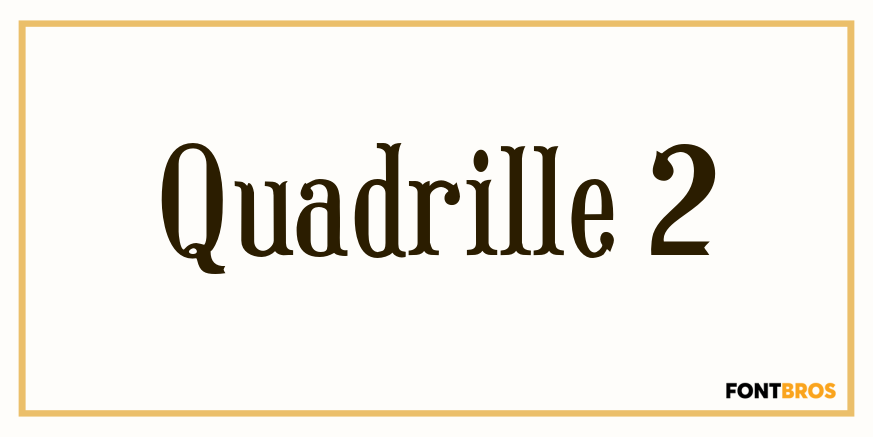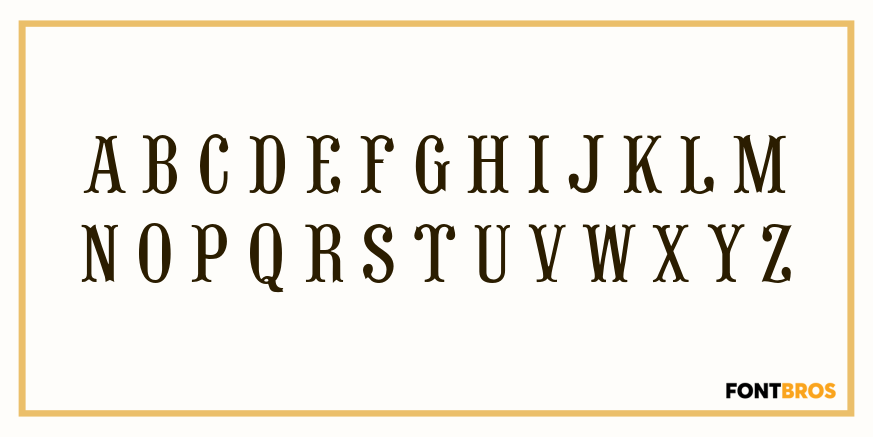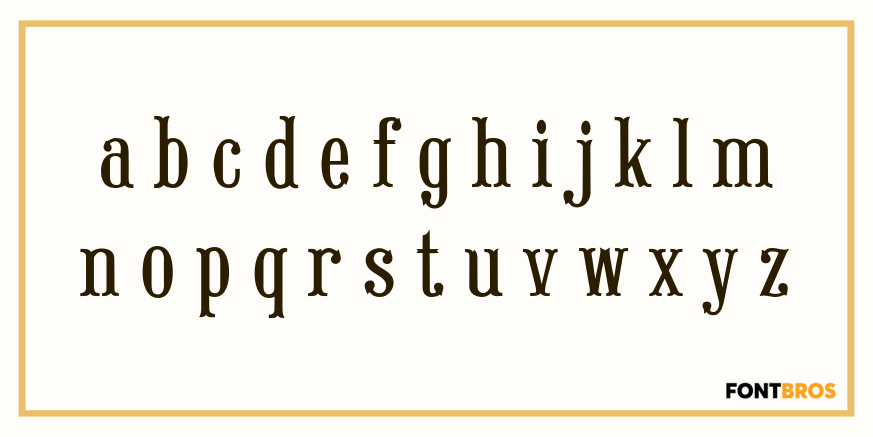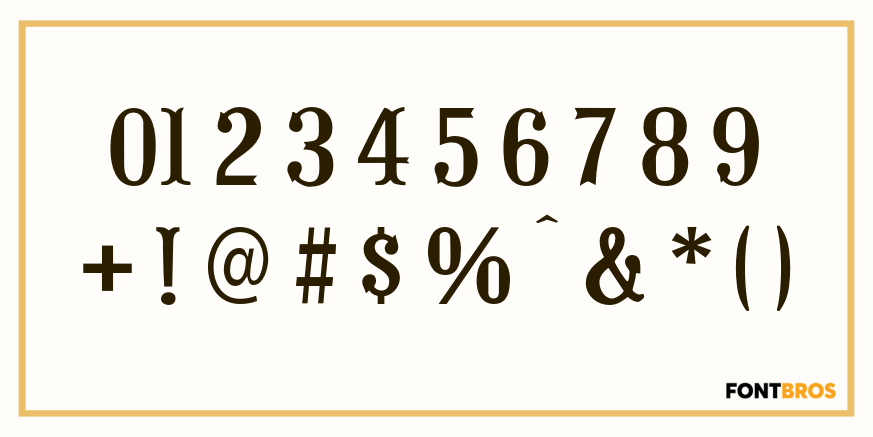
Quadrille 2
This is a simplified Tuscan, free from excessive ruffles and flourishes.
Types of this general design began to appear in profusion in the 1830, and continued as a popular form until the end of the nineteenth century.
We added the lowercase to this one for increased usefulness.